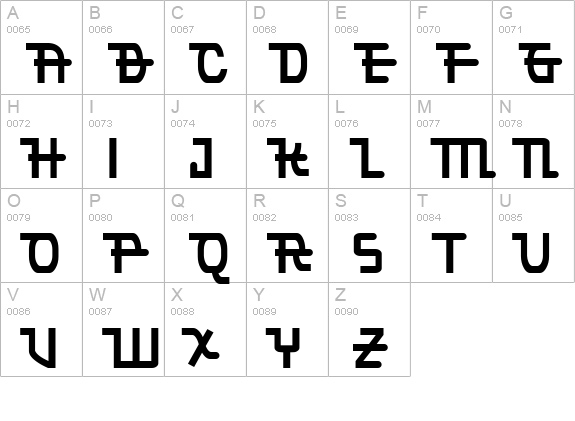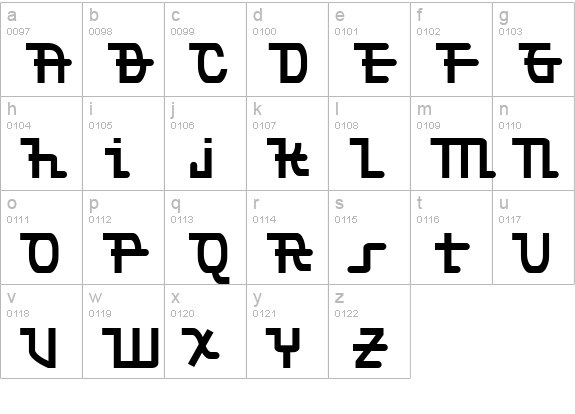
Torpedo Font Details
Introducing Torpedo font - a striking typeface that is bound to make a bold statement in any design project. With its sleek and modern design, Torpedo font combines sharp edges with subtle curves, creating a visually captivating and dynamic appearance. This versatile font is suitable for a wide range of applications, from headlines and logos to posters and packaging. Its clean and legible characters ensure maximum readability, while its distinctive personality adds a touch of sophistication to any design. What sets Torpedo font apart is not only its stunning aesthetics but also its accessibility. As a free font, it allows designers and enthusiasts alike to effortlessly incorporate it into their creative endeavors without any financial constraints. To download this remarkable font, simply visit FontsMarket.com and enjoy the freedom to explore its endless possibilities. Whether you're working on a professional project or simply experimenting with typography, Torpedo font is a must-have addition to your font library. Its bold and captivating nature will undoubtedly leave a lasting impression on any audience. So why wait? Embrace the power of Torpedo font and elevate your designs to new heights.